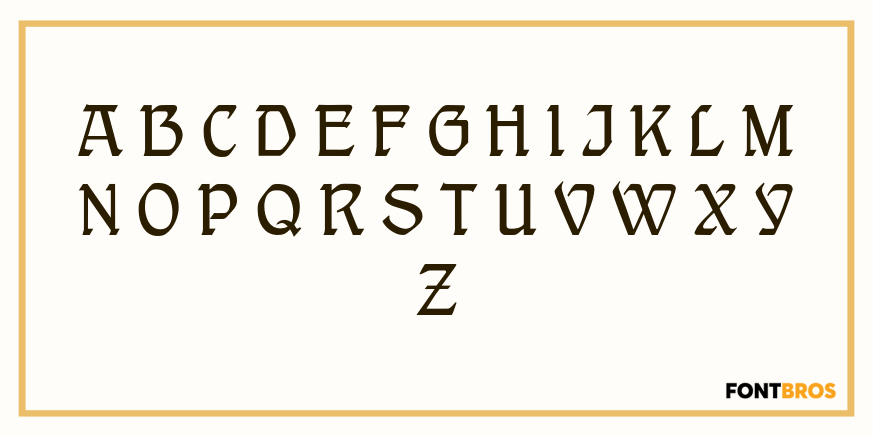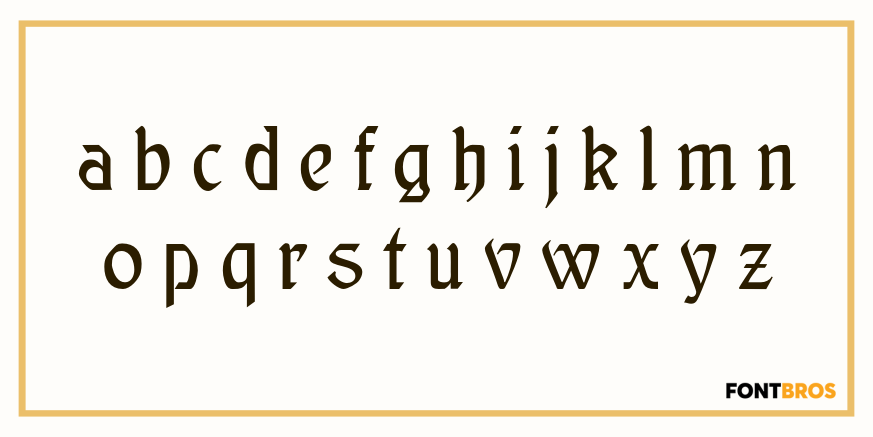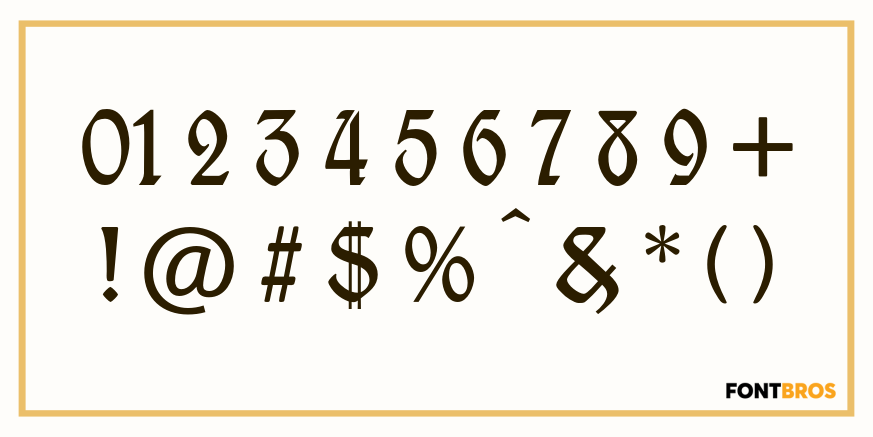
Inglenook Text
Inglenook Text is a single-style serif display face from Solotype with a distinctly historical feel. Its angular forms, wedge serifs, and blackletter-influenced, calligraphic details give it an ornate, old-world presence that feels medieval, gothic, and high-contrast at the same time.
This is a font built for attention-grabbing display work rather than quiet body copy. It suits projects that benefit from a decorative, period-minded voice, including posters, signage, themed branding, packaging, book covers, and other designs where a historical or richly styled look helps set the tone.
Because the family includes 1 font style, it works best when you want a focused, recognizable typographic personality. If your project calls for something dramatic, embellished, and rooted in historical letterforms, this face brings that character across quickly.